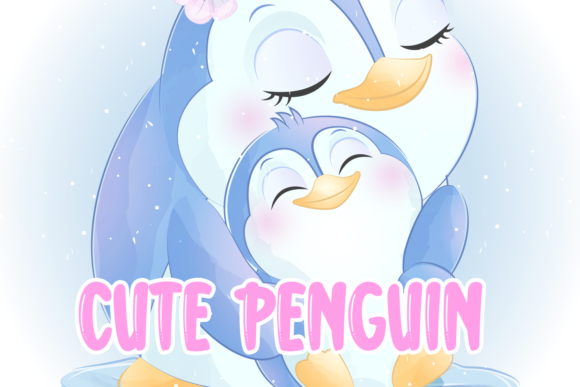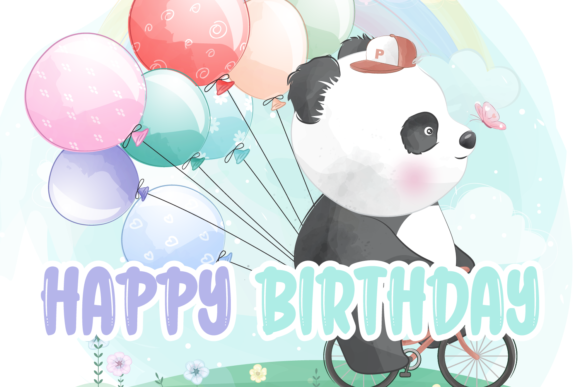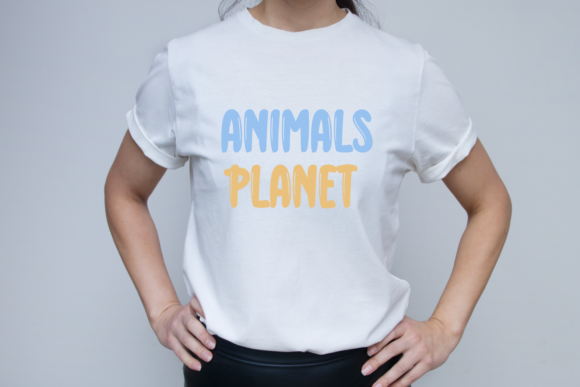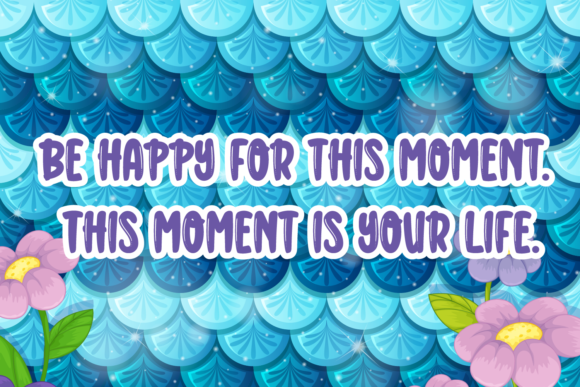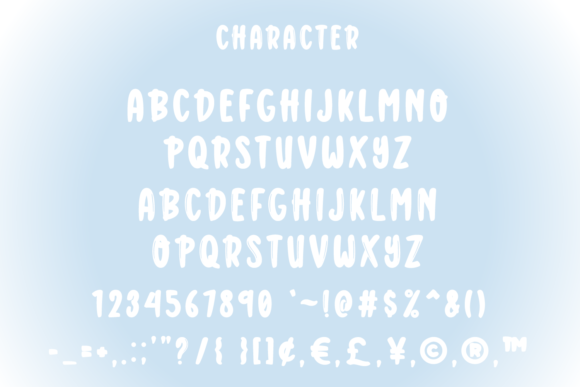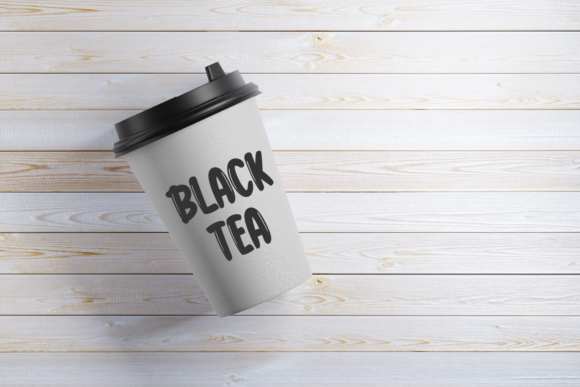
Meet the Adorable Baby Penguin Font
Who hasn’t had a moment where they stumbled upon the perfect font for a project, and suddenly, their creative juices started flowing? For many designers, it’s like finding a long-lost treasure that sparks imagination and inspires new ideas. And that’s exactly what happens when you come across the Baby Penguin Font. This charming display font is designed to spread joy and friendliness, making it the perfect addition to any children’s project, from nursery rhymes to educational materials.
The Baby Penguin Font is more than just a cute face – it’s a valuable tool for designers who want to connect with their audience on a personal level. With its playful and authentic characters, it’s perfect for brands and businesses that cater to families and young audiences. Whether you’re designing a children’s book, a website for a family-friendly business, or even a social media campaign, the Baby Penguin Font is sure to bring a smile to your face and a touch of whimsy to your design.
Baby Penguin Font Key Features
- Unique Characteristics: The font features a playful, hand-drawn design with rounded edges and soft lines, giving it a cute and endearing feel.
- Character Set: The font includes a wide range of characters, including uppercase and lowercase letters, numbers, and punctuation marks.
Baby Penguin Font Review
I recently had the chance to work with the “Baby Penguin Font” and I must say, it’s a unique addition to any project. ✨ The playful, whimsical design makes it perfect for children’s books, nursery decorations, or any other project that requires a touch of cuteness.
Here are some things that work well with this font:
- ✨ Easy to read: Despite its playful design, the font is still easy to read, even at smaller font sizes.
- ✨ Versatile: The font comes in a range of weights, making it suitable for a variety of design projects.
- ✨ Cute and quirky: The font’s design is undeniably adorable and will add a touch of personality to any project.
- ⚠️ Limited language support: The font may not be optimized for languages with non-Latin scripts, which could be a limitation for international projects.
- ⚠️ May not be suitable for formal projects: The font’s playful design may not be suitable for formal or professional projects, such as business reports or academic papers.
Overall, I think the “Baby Penguin Font” is a great choice for projects that require a touch of whimsy and cuteness. However, it’s essential to consider its limitations and ensure it’s the right fit for your project.
Tips for Getting the Most Out of Baby Penguin Font
Use the Baby Penguin Font for whimsical and playful designs, such as children’s birthday invitations or nursery decor.
Consider combining the font with other cute and colorful elements to create a cohesive visual theme.
Experiment with different font sizes and colors to add visual interest to your design.
Common Use Cases for Baby Penguin Font
The Baby Penguin Font is perfect for:
Children’s party invitations and decorations
Nursery and kids’ room decor
Whimsical and playful branding and marketing materials
Q: What is the recommended font size and line height for optimal readability with the Baby Penguin Font?
For optimal readability, we recommend using a font size between 12-18 points and a line height of at least 1.2-1.5 times the font size. This will ensure clear and legible text in your designs.